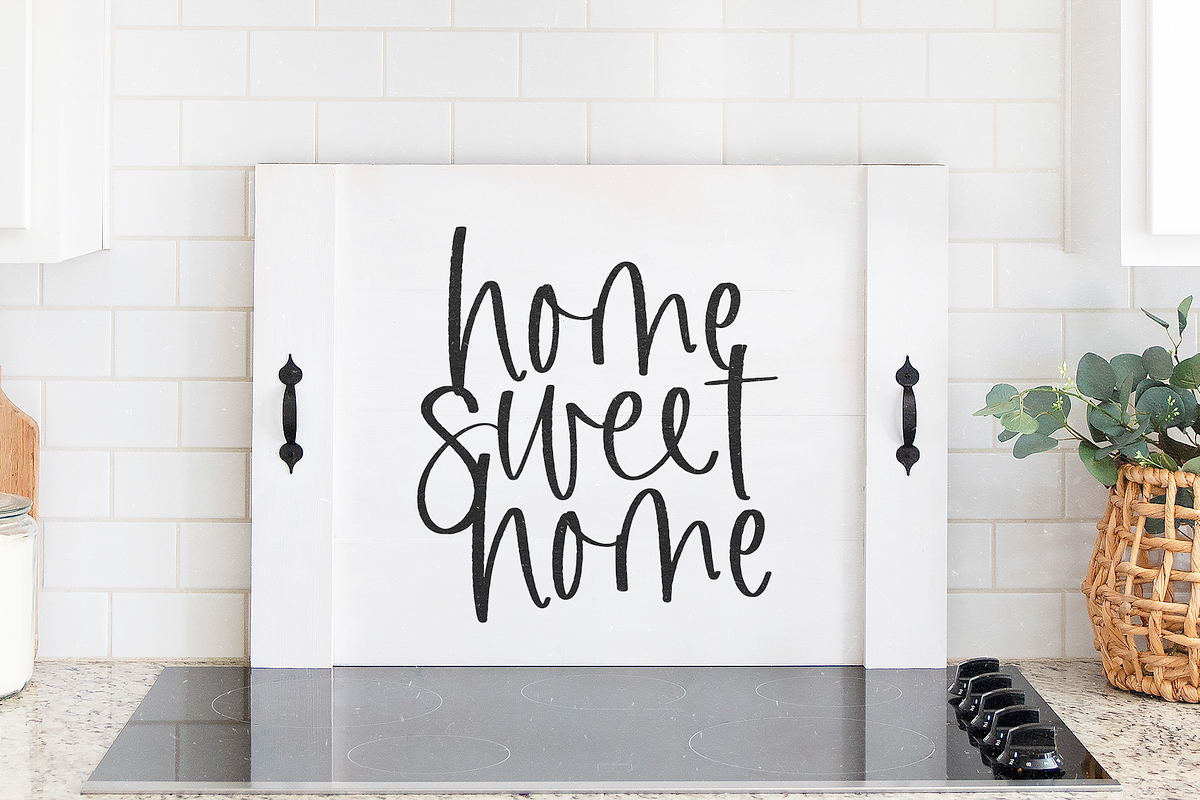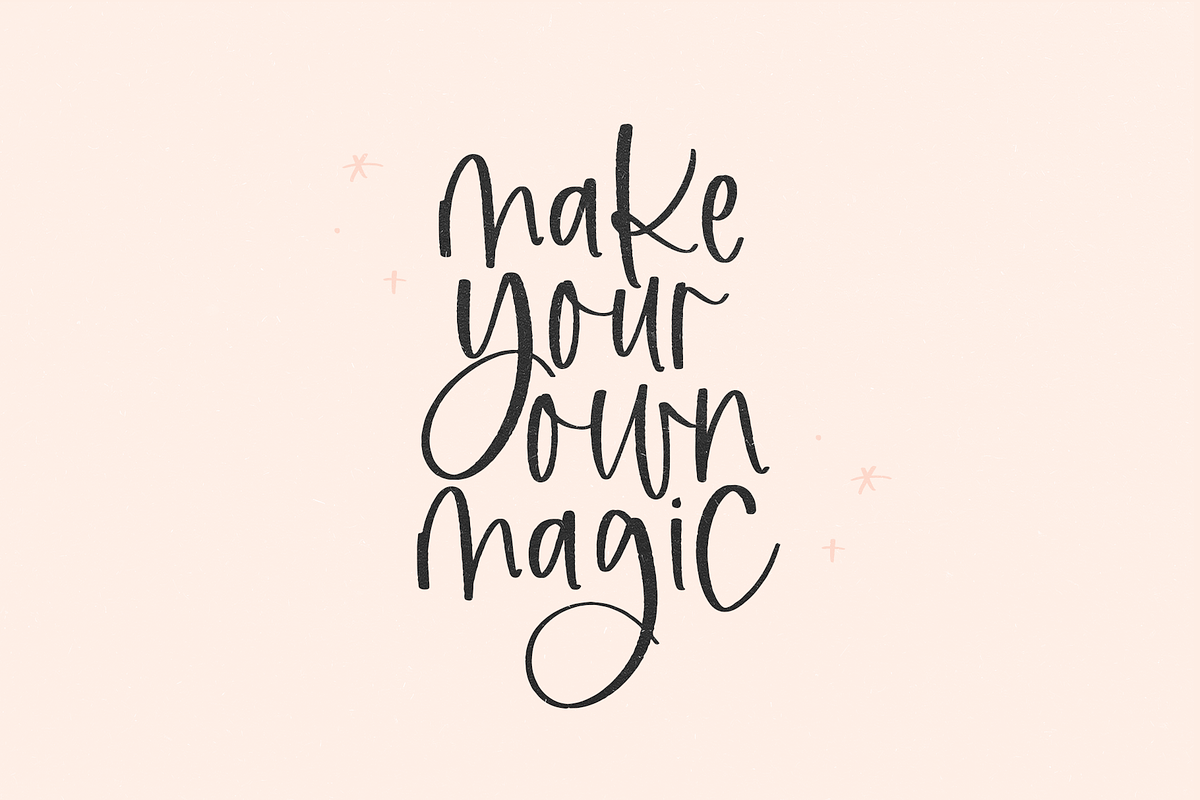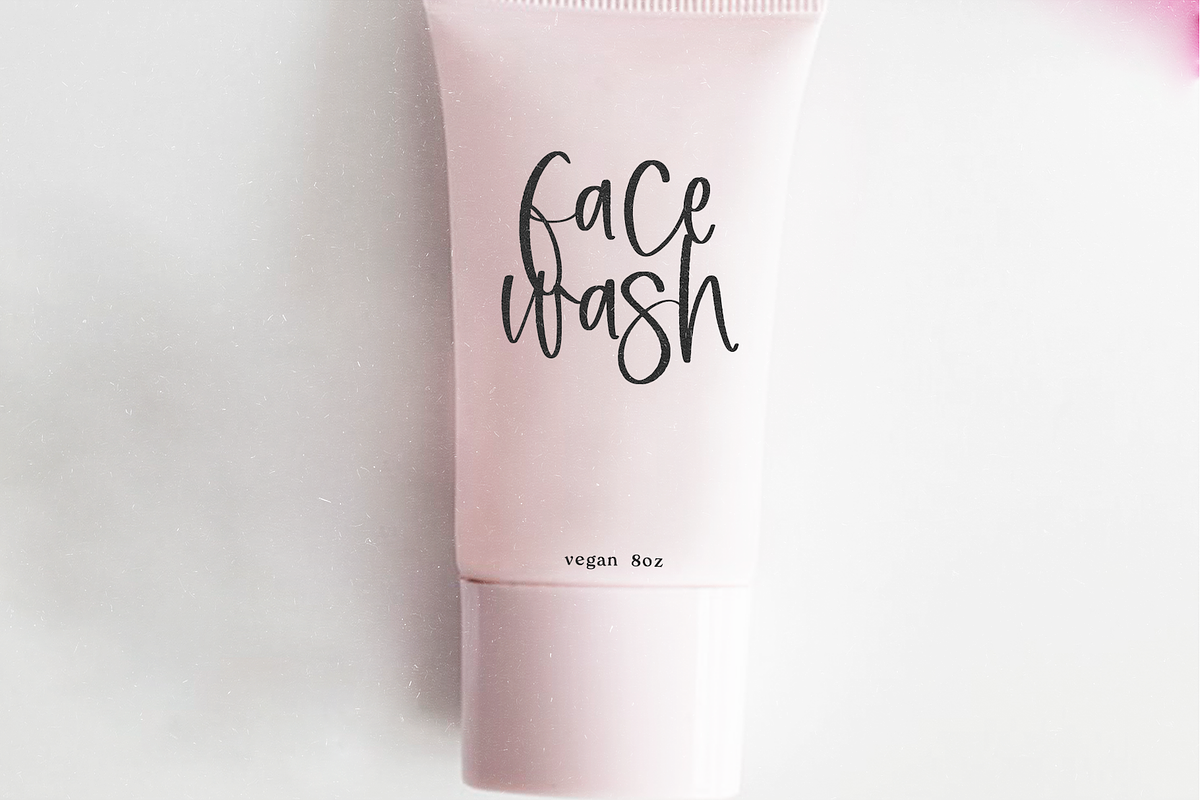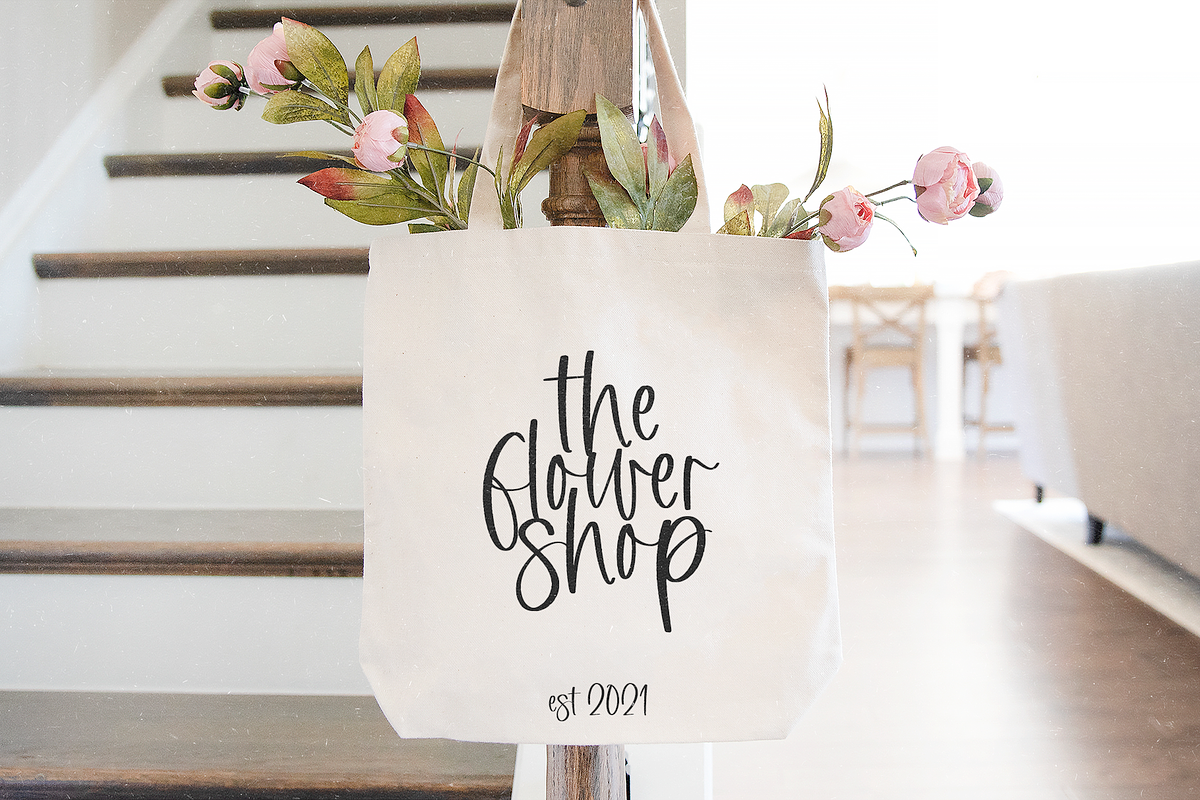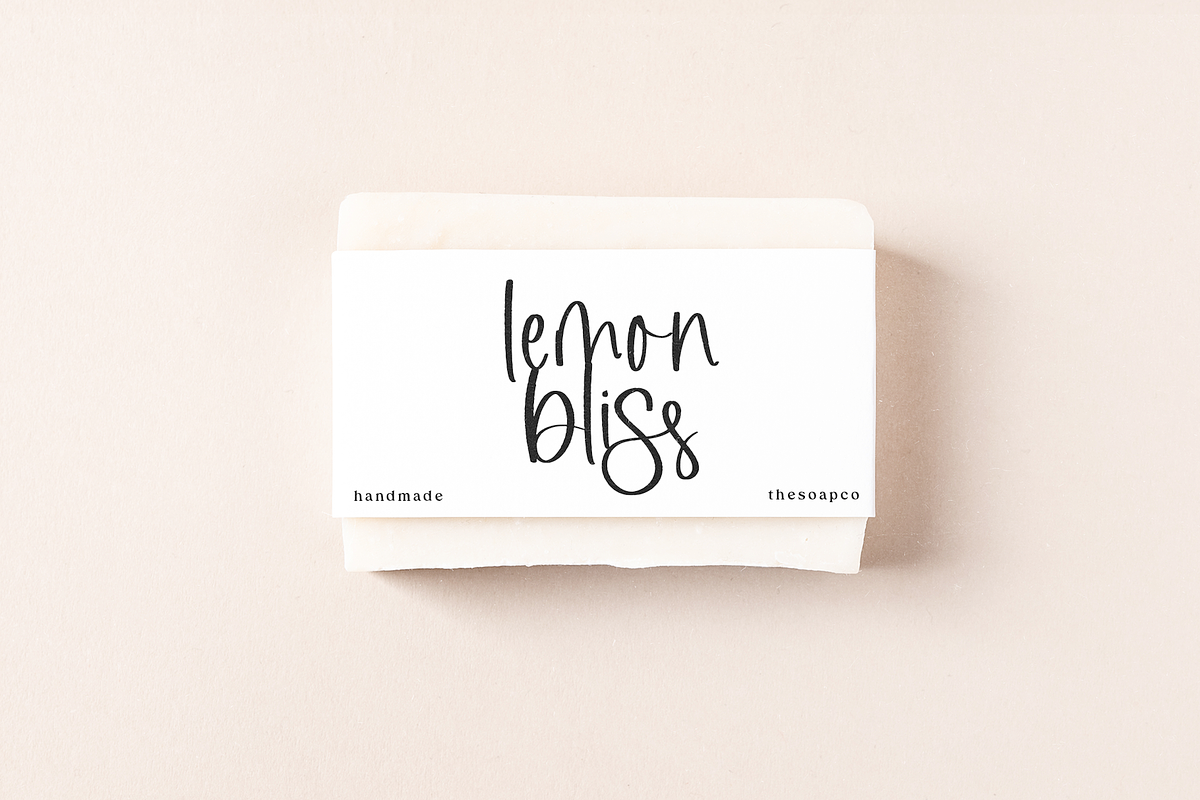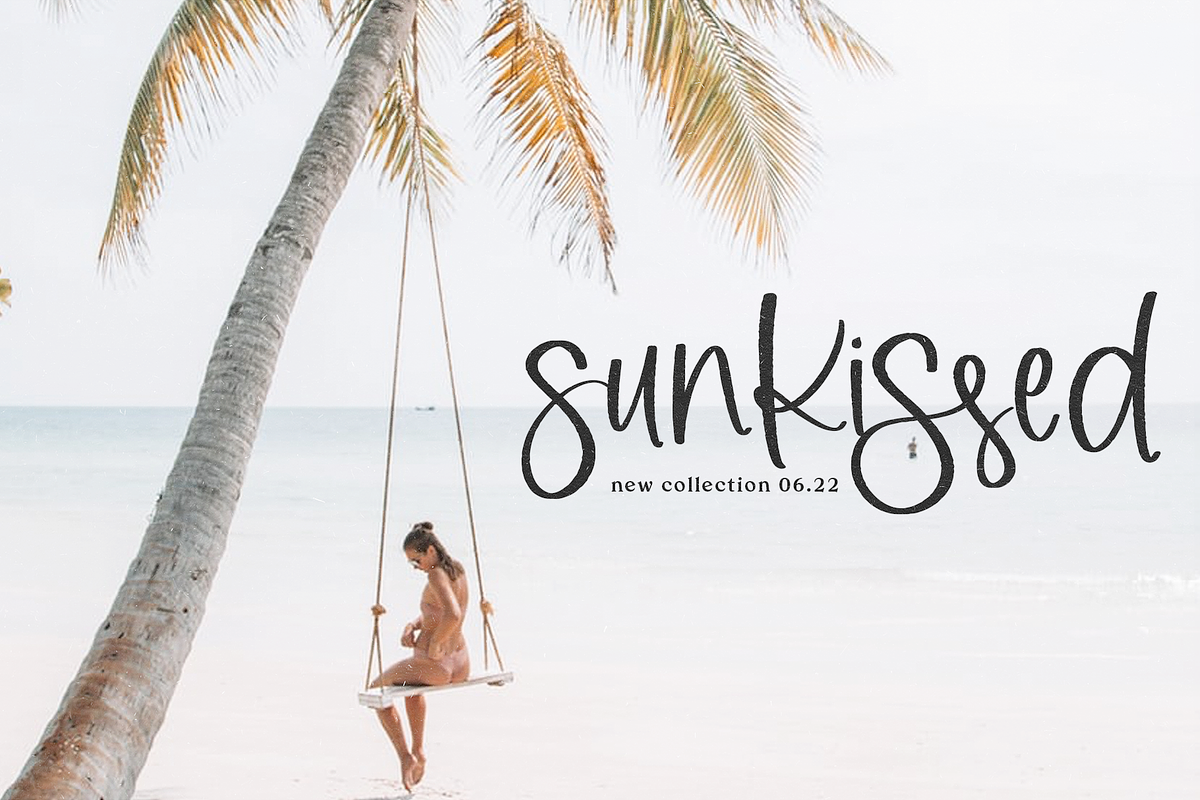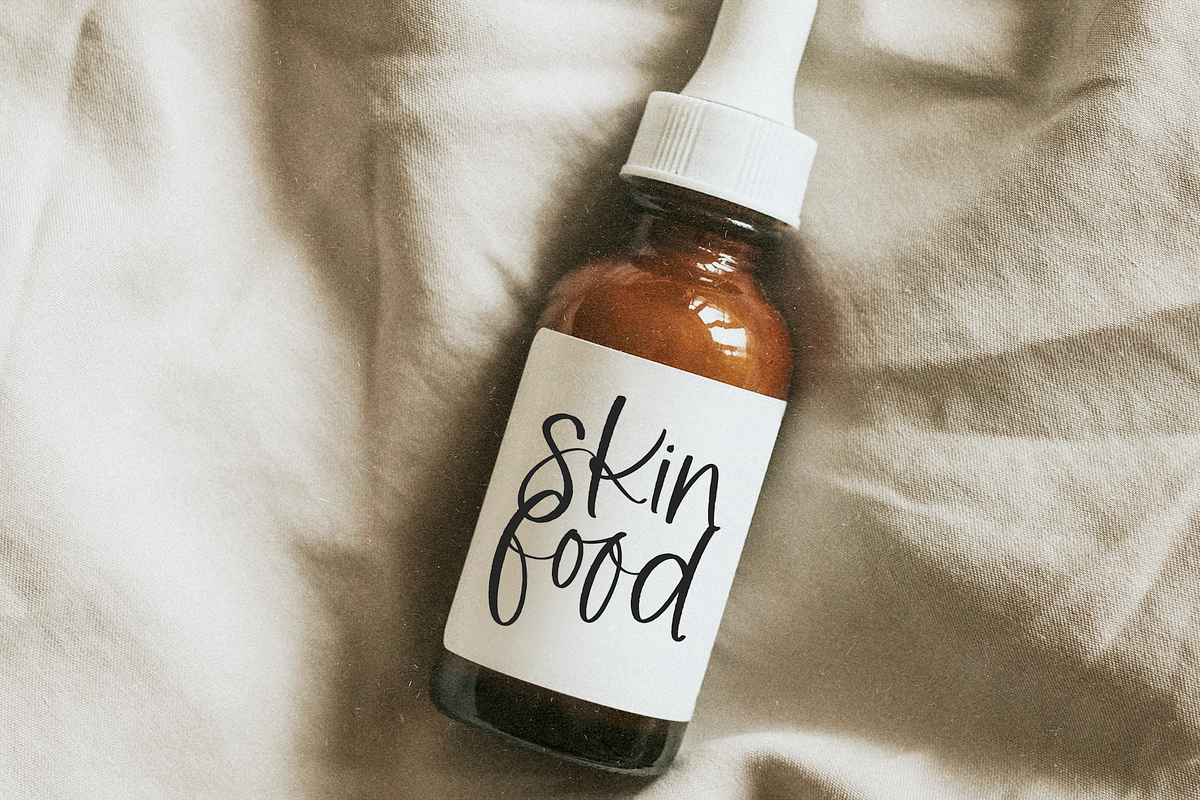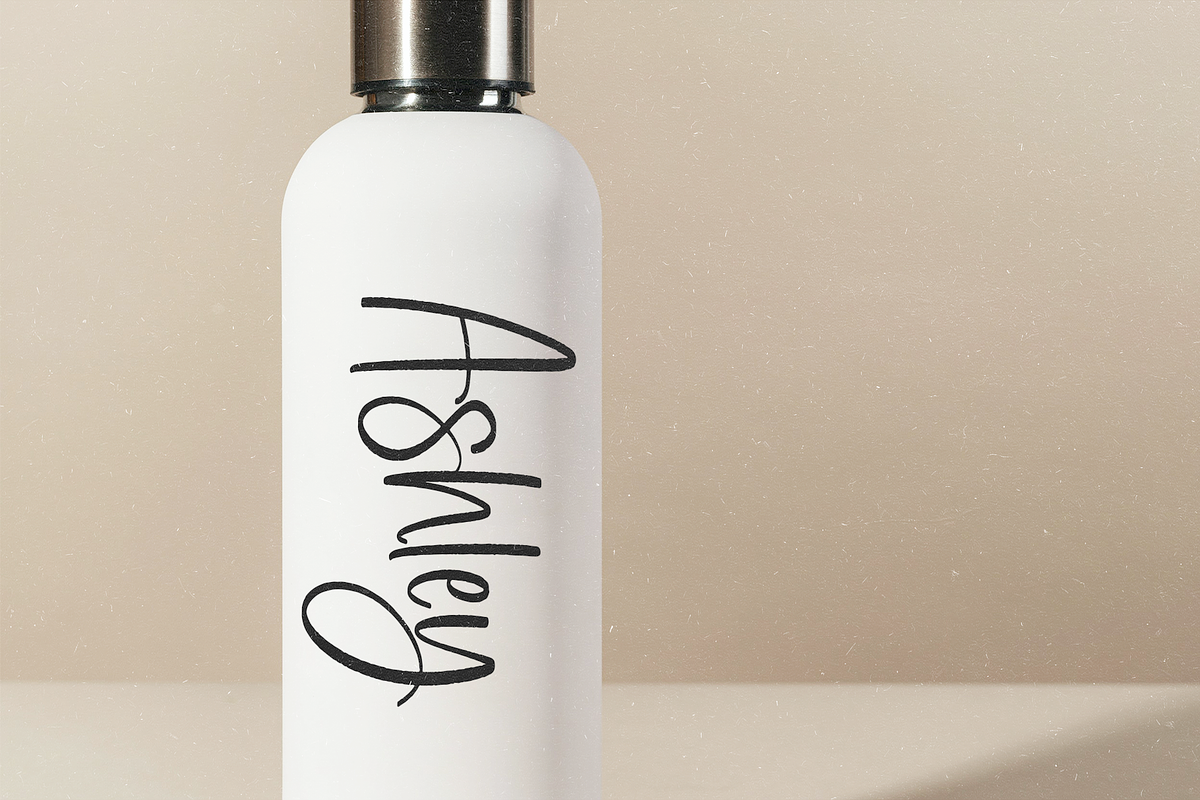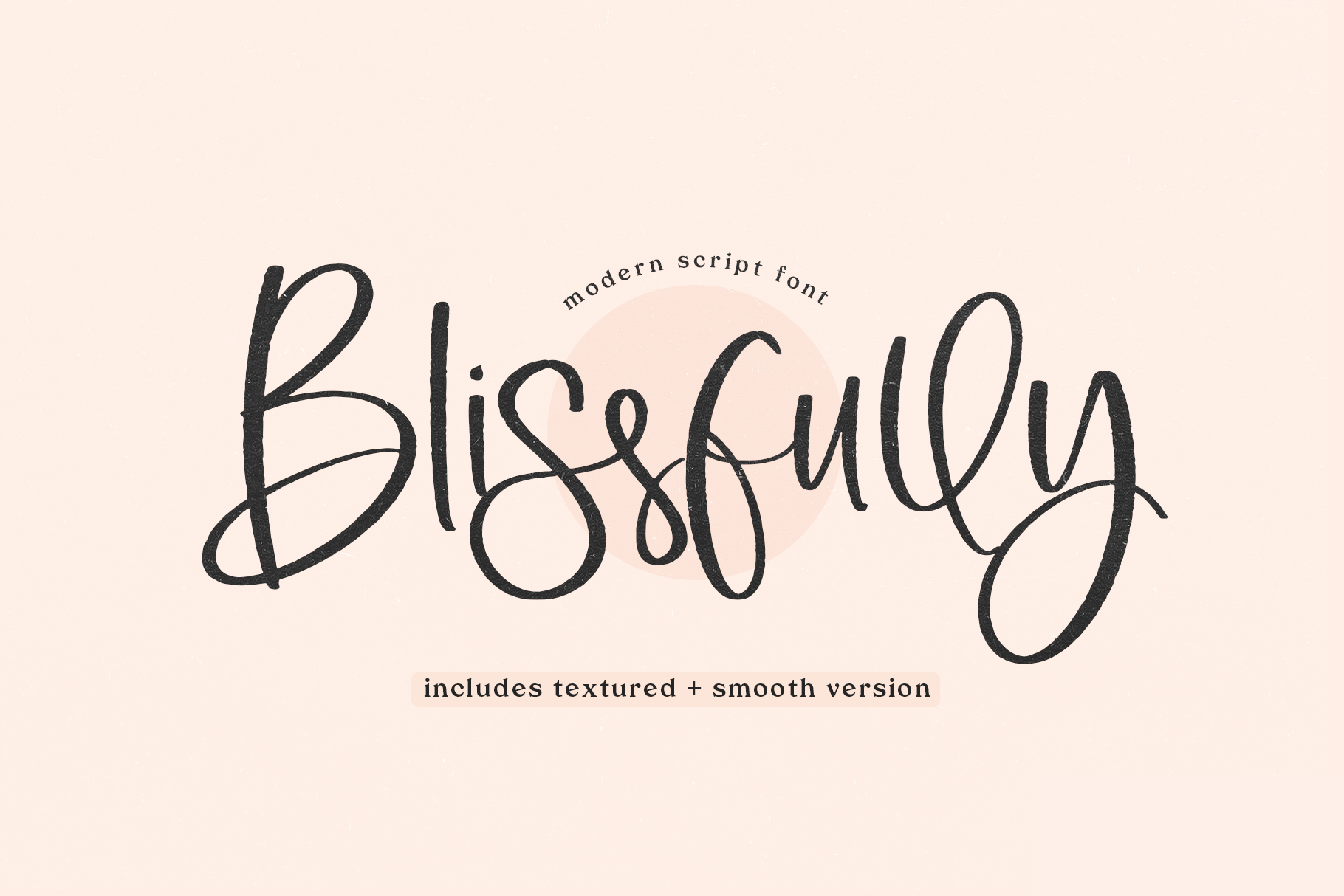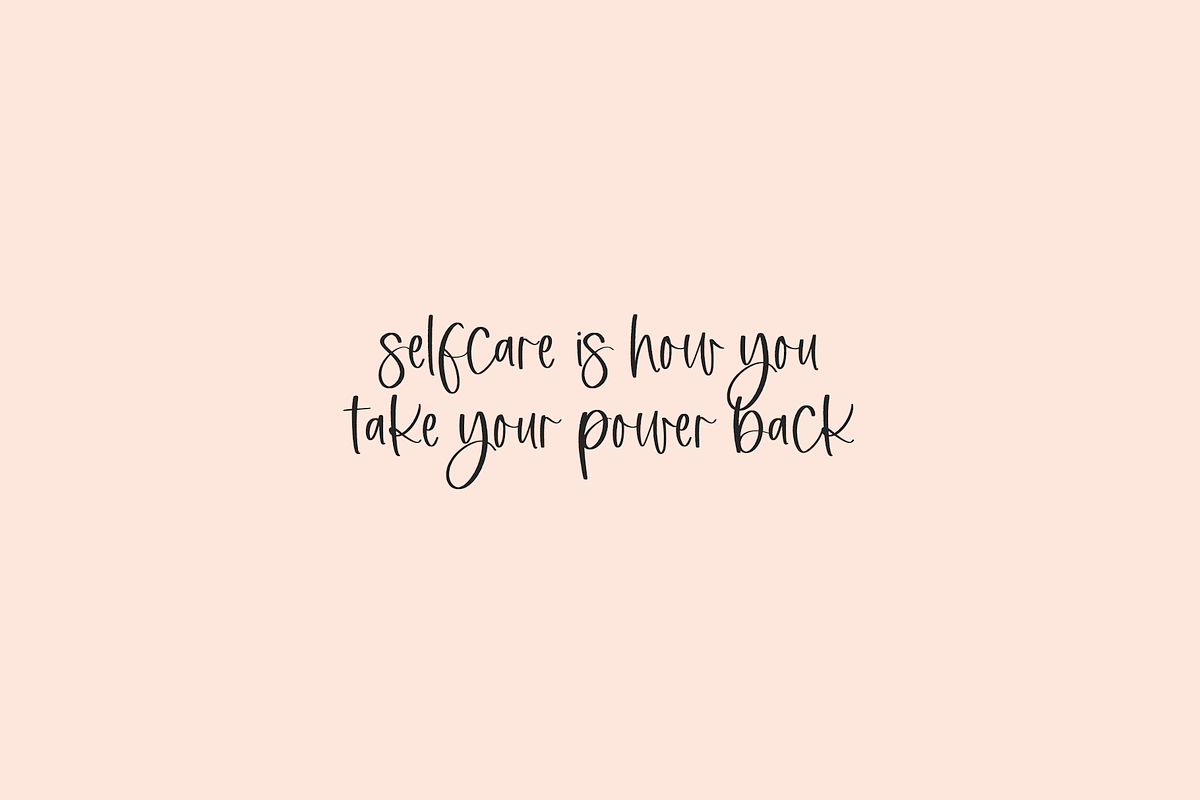
Blissfully | Modern Script Font
Blissfully is a textured script font in a modern calligraphy style.
This is a TEXTURED FONT. This font is best for web/print use. This font is not recommended for cutting machines - the edges are rough. The font was created this way to give an authentic brush pen look!
NEW Smooth version added - perfect for cricut and silhouette users.